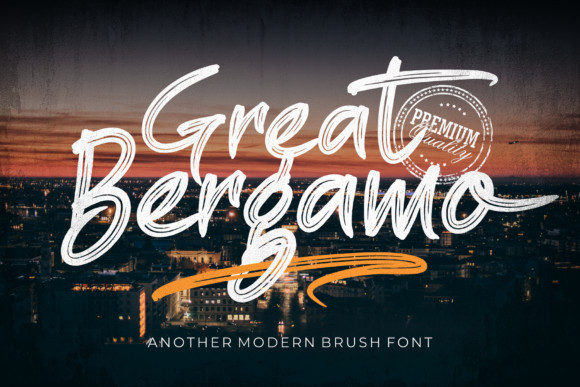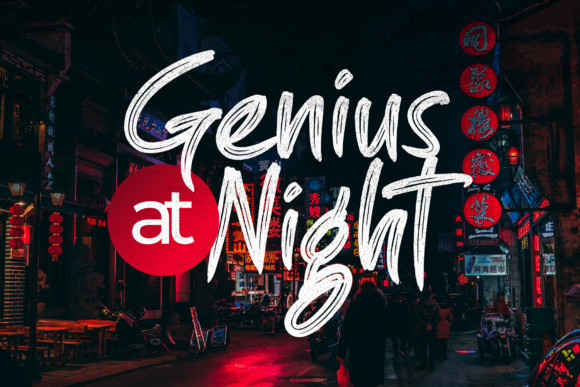
Great Bergamo Font
Great Bergamo is a flowing handwritten font, described by an elegant touch, perfect for your favorite projects. Fall in love with its incredibly distinct and timeless style and use it to create spectacular designs!